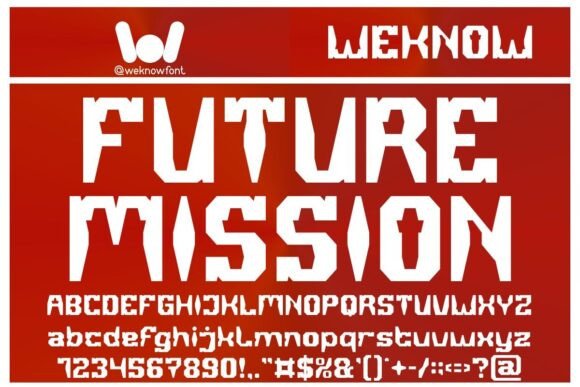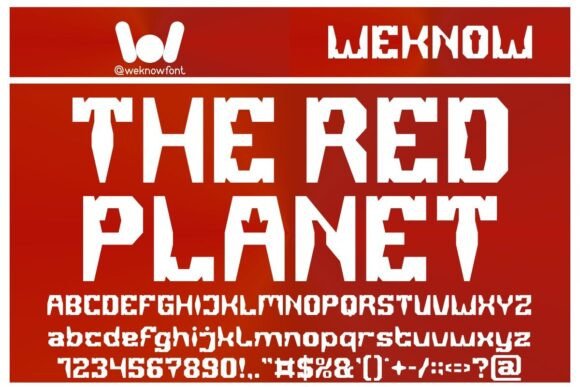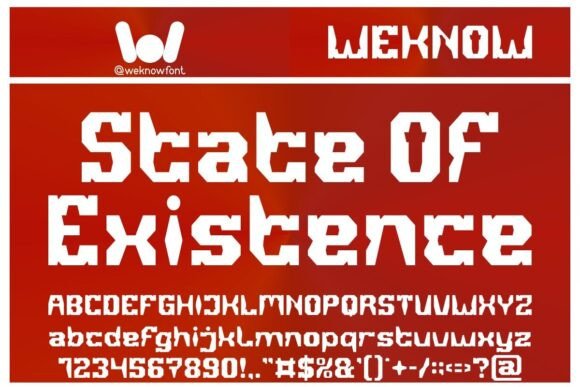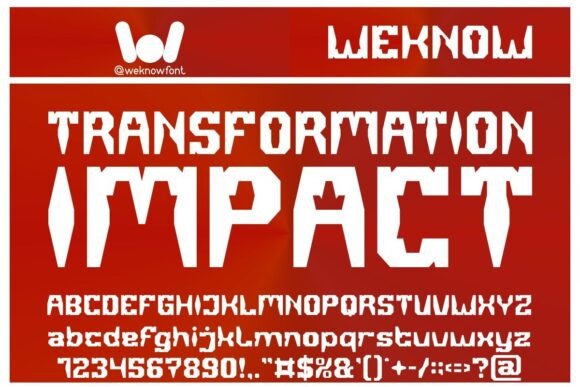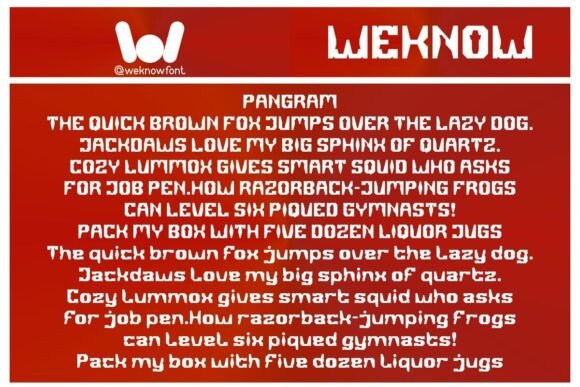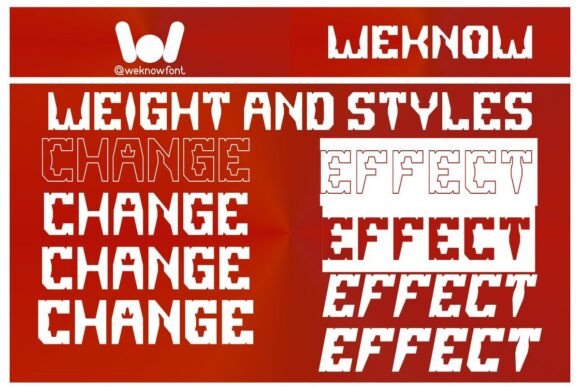
Unlock the Future with Change Effect Font
You’ve just landed on a fresh brief, and the words are flowing: “Create something that redefines the ordinary.” Your mind starts racing with ideas, and suddenly, the vision of a sleek, futuristic world appears before you. This is the moment when creativity knows no bounds, and the right font can make all the difference. Enter Change Effect Font, a techno-sci-fi-inspired display font that’s been tuned to the frequency of innovation.
Designed to serve as the perfect protagonist for your corporate identity, Change Effect Font is more than just a font – it’s a statement piece. Its cutting-edge charm can breathe new life into your brand, command attention with headlines, and lend a forward-thinking air to your designs. Whether you’re working on a gaming project, magazine spread, or book cover, Change Effect Font is the perfect companion to help you redefine the ordinary.
Change Effect Font Key Features
- Unique Character Styles: Allows users to create custom font styles with advanced character effects, such as glow, shadow, and outline
Designer Review: Change Effect Font
I had the opportunity to work with the Change Effect Font, and I must say it’s a unique addition to any design project. ✨ One of the things that stood out to me was the ability to adjust the effect of the font, allowing for a range of customization options. This flexibility is a major plus, making it suitable for a wide range of applications.
Additionally, the font is incredibly easy to use, with a user-friendly interface that makes it simple to apply the desired effects. The results are visually striking, with a clear focus on the text. ✨
- ⚠️ Some effects may not be suitable for all types of content
Overall, I’d say the Change Effect Font is a great choice for designers looking to add a unique touch to their projects. While it may have some limitations, the flexibility and ease of use make it well worth considering.